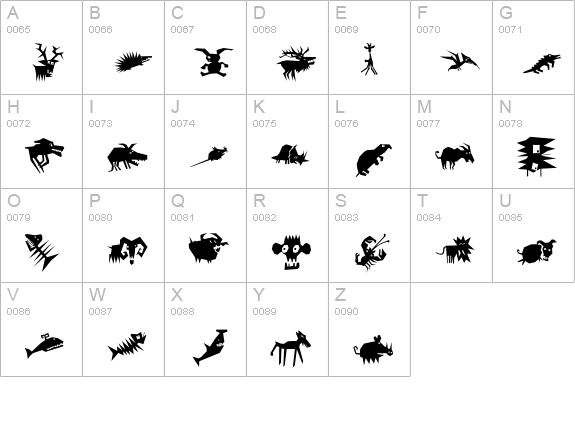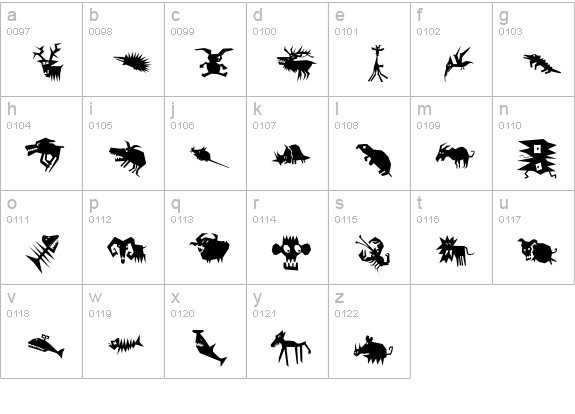
AnimaliaScissored Font Details
The AnimaliaScissored font is a unique and creative typeface that combines elements of whimsy and sophistication. With its playful and intricate design, this font is perfect for adding a touch of charm to any project. The carefully crafted details and scissor-inspired shapes give the font a distinctive look that is sure to make your designs stand out. AnimaliaScissored is not only visually appealing but also versatile, suitable for a wide range of design projects including branding, invitations, posters, and more. Whether you're looking to add a fun and quirky touch to your designs or want to create something truly eye-catching, this font is sure to inspire creativity. Best of all, AnimaliaScissored is available for free download at FontsMarket.com, making it accessible to designers of all levels. Don't miss out on the opportunity to add this charming and unique font to your collection today!